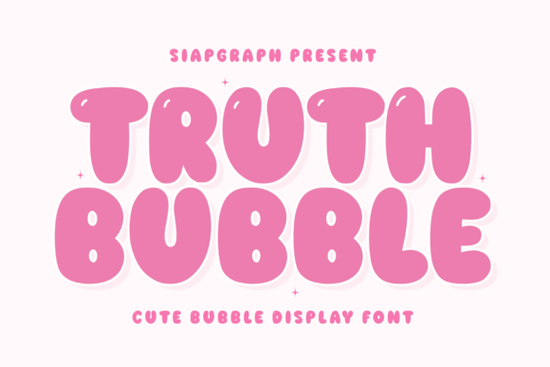
Finding the right typeface for playful crafting projects can be tricky, especially when you need something that cuts cleanly on a vinyl machine. Truth Bubble Font is a cute, modern display typeface designed specifically for crafters, DIY enthusiasts, and print-on-demand sellers. It features thick, rounded characters with subtle glossy highlights that give your designs a soft, friendly, and joyful aesthetic. Whether you are making adhesive decals or digital graphics, the bold, clean construction ensures your equipment handles every curve without issue.
How does this typeface perform with vinyl cutters and sublimation?
For crafters using Cricut or Silhouette machines, weeding intricate lettering is a common frustration that wastes time and material. This typeface is built with a thick, bold construction that minimizes tiny, fragile details. When you generate an SVG cut file, the rounded edges translate perfectly to physical materials like permanent vinyl or heat transfer vinyl. You won't have to worry about the machine tearing delicate serifs or getting stuck on sharp inner corners. The characters are wide enough to cut smoothly at smaller sizes, making them highly practical for custom sticker sheets, personalized water bottle decals, and layered greeting cards.
Beyond cutting, the font is also highly optimized for sublimation printing. The built-in glossy highlights add a sense of depth and dimension directly into the lettering. This means you can print a flat design onto a tumbler or ceramic mug, and the text will still look vibrant, three-dimensional, and engaging without requiring complex layering in your design software.
What kind of designs work best with this aesthetic?
The bubbly, approachable look makes it ideal for anything targeting a younger or fun-loving audience. If you are creating nursery wall art or kids' birthday party decorations, this style brings a sweet and optimistic vibe to the room. It is also a great fit for seasonal crafts like Valentine's Day cards, Children's Day apparel, or summer party invitations.
Is it suitable for commercial print-on-demand apparel?
Many small businesses rely on bold, readable typography to make their t-shirt designs stand out on crowded marketplace platforms. The thick layout of this font ensures that text remains legible even when printed on textured fabrics like heathered cotton or fleece hoodies. This saves time when you are preparing mockups for custom toddler shirts, teacher appreciation gifts, or matching family vacation outfits.
How can I use it for digital branding and social media?
Social media branding often requires typography that is easy to read on mobile screens while still conveying a specific personality. The rounded edges of this font make it highly legible even when scaled down for Instagram stories, Pinterest pins, or YouTube thumbnails. It works exceptionally well for quote graphics, promotional sale banners, and playful digital sticker packs for planning apps. If you are working on a more minimalist, modern aesthetic for your digital channels, you might want to explore this sleek sans-serif alternative to mix with your bubbly main headings.
Quick checklist for your next project
- Convert to paths: Always outline your text in vector software before sending it to a cutting machine to prevent missing font errors.